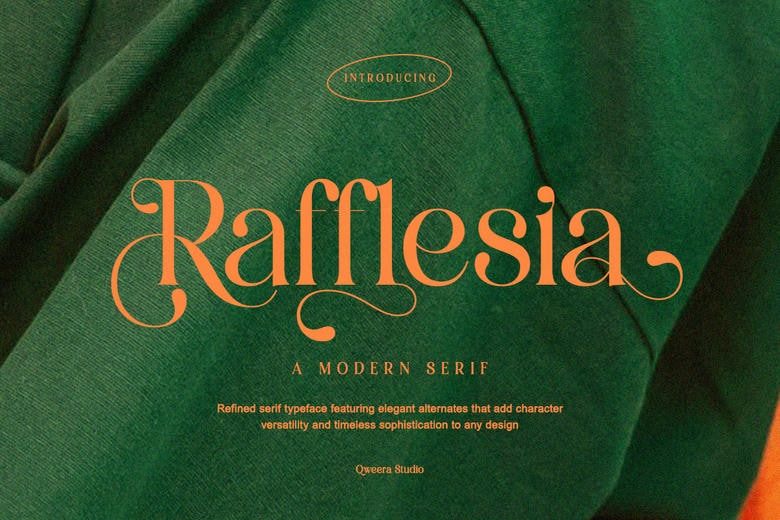
Rafflesia Font
Rafflesia is a modern serif font made for fashion branding, beauty logos, editorial layouts, boutique identities, and premium lifestyle projects.
This font is great for logos, magazine headlines, fashion campaigns, skincare packaging, beauty labels, social media posts, and premium brand presentations.
Rafflesia Serif Font